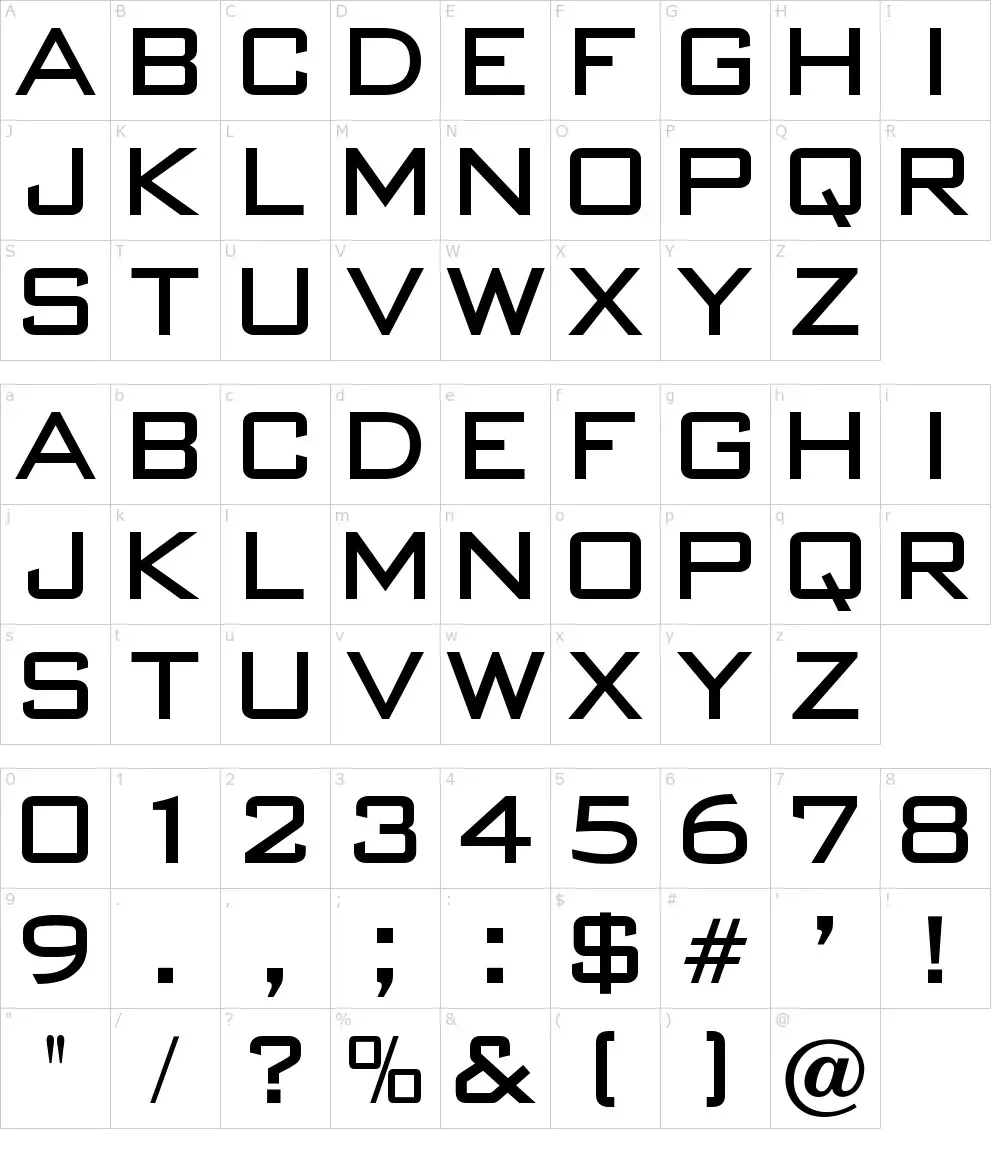
Bank Gothic Font brings a bold, tech-forward attitude to any design. With its square letterforms and all-uppercase layout, this Font makes a strong first impression, especially in projects related to sci-fi, defense, or high-end technology. Originally developed in the early 20th century, it still feels strikingly modern. Whether used in movie posters or product packaging, This Font style delivers a confident, industrial tone that's hard to miss.
- Designer: Morris Fuller Benton (original, ATF)
- Released: 1930s
- Style: Square, rectilinear sans serif
- Reinterpretation: Alexander Tarbeev for Paratype (1994 version for Cyrillic support)
- All-uppercase design for a clean, structured look
- Angular, geometric forms that convey strength
- Ideal for large display text or branding elements
- Strong visibility in digital and print settings
The Font fits perfectly in sci-fi movie titles, tech startup branding, military-themed designs, or gaming covers. It pairs well with thin sans serifs like Roboto Light or clean fonts like Avenir for contrast.